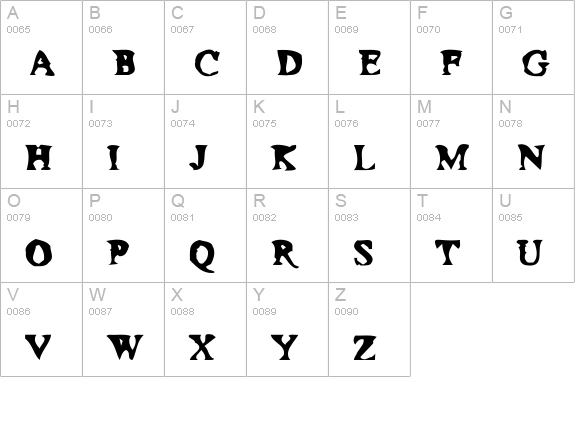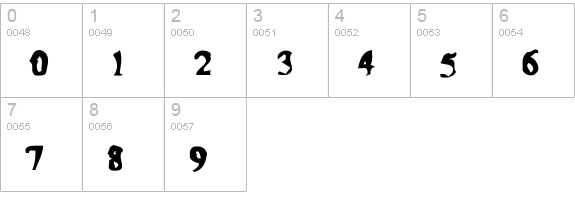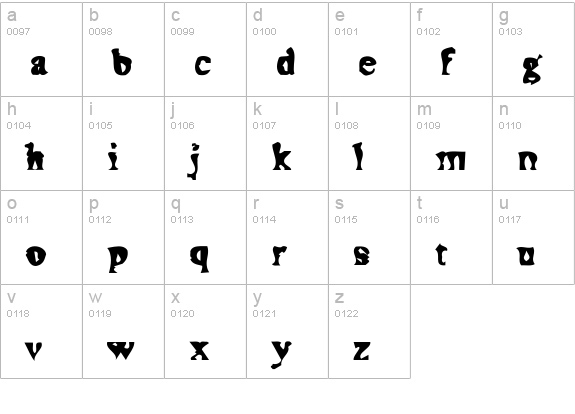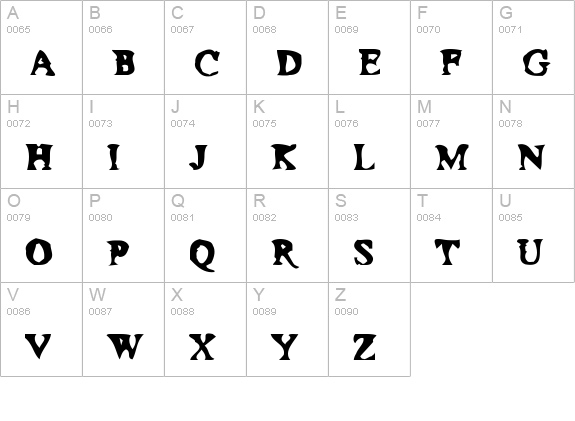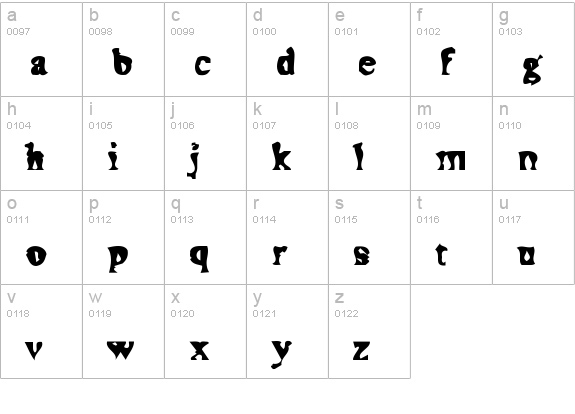
MoonshineMurky Font Details
MoonshineMurky font is a charming and whimsical typeface that exudes a mysterious and enchanting aura. Its irregular strokes and playful curves give it a unique and distinctive look, making it perfect for projects that require a touch of magic and fantasy. This font is free to download at FontsMarket.com, allowing you to easily add a touch of whimsy to your designs without any cost. Whether you're working on a poster, logo, or greeting card, MoonshineMurky font is sure to capture attention and add a sense of mystery to your creations. Download it today and let your imagination run wild with this captivating typeface.